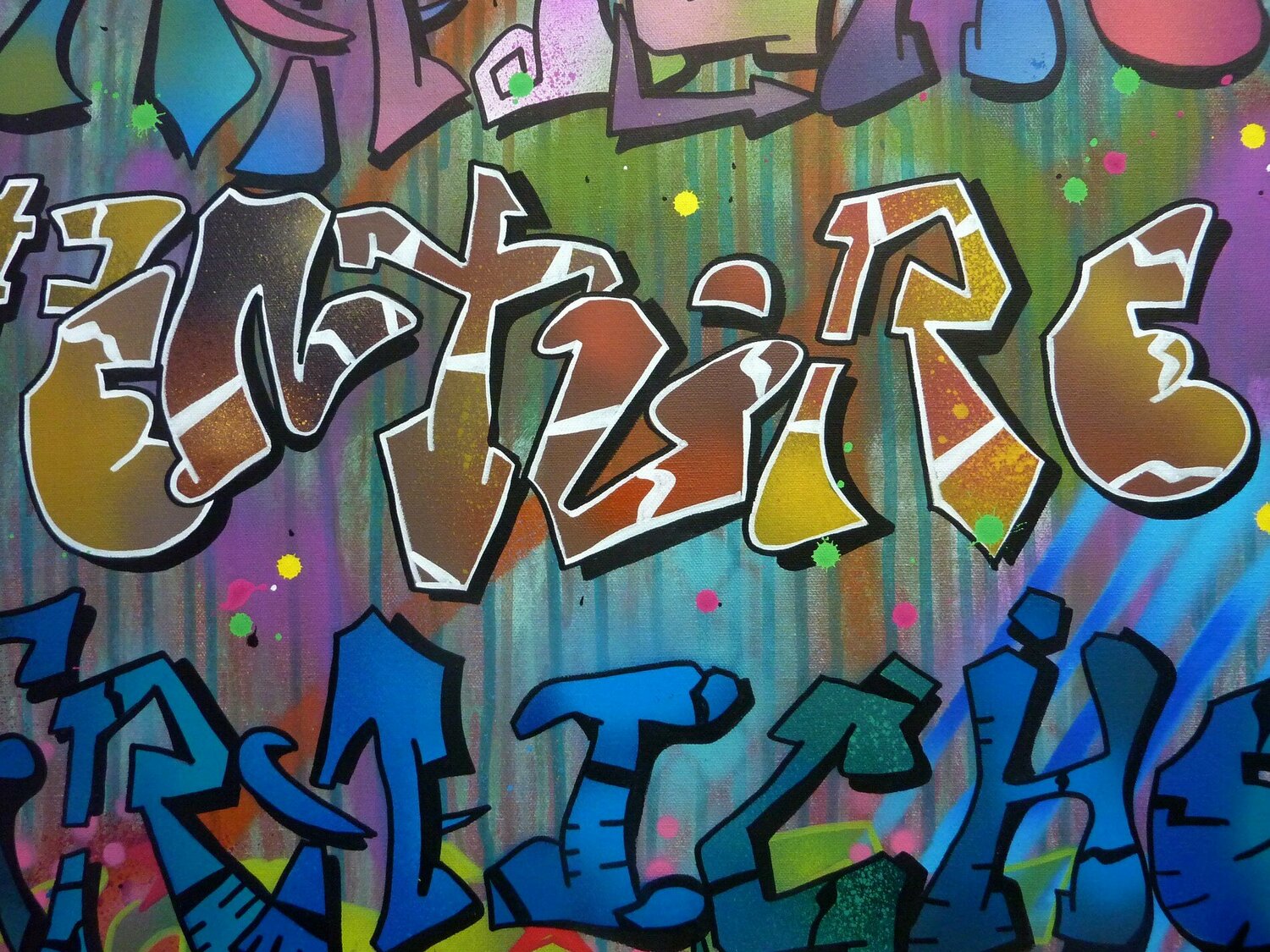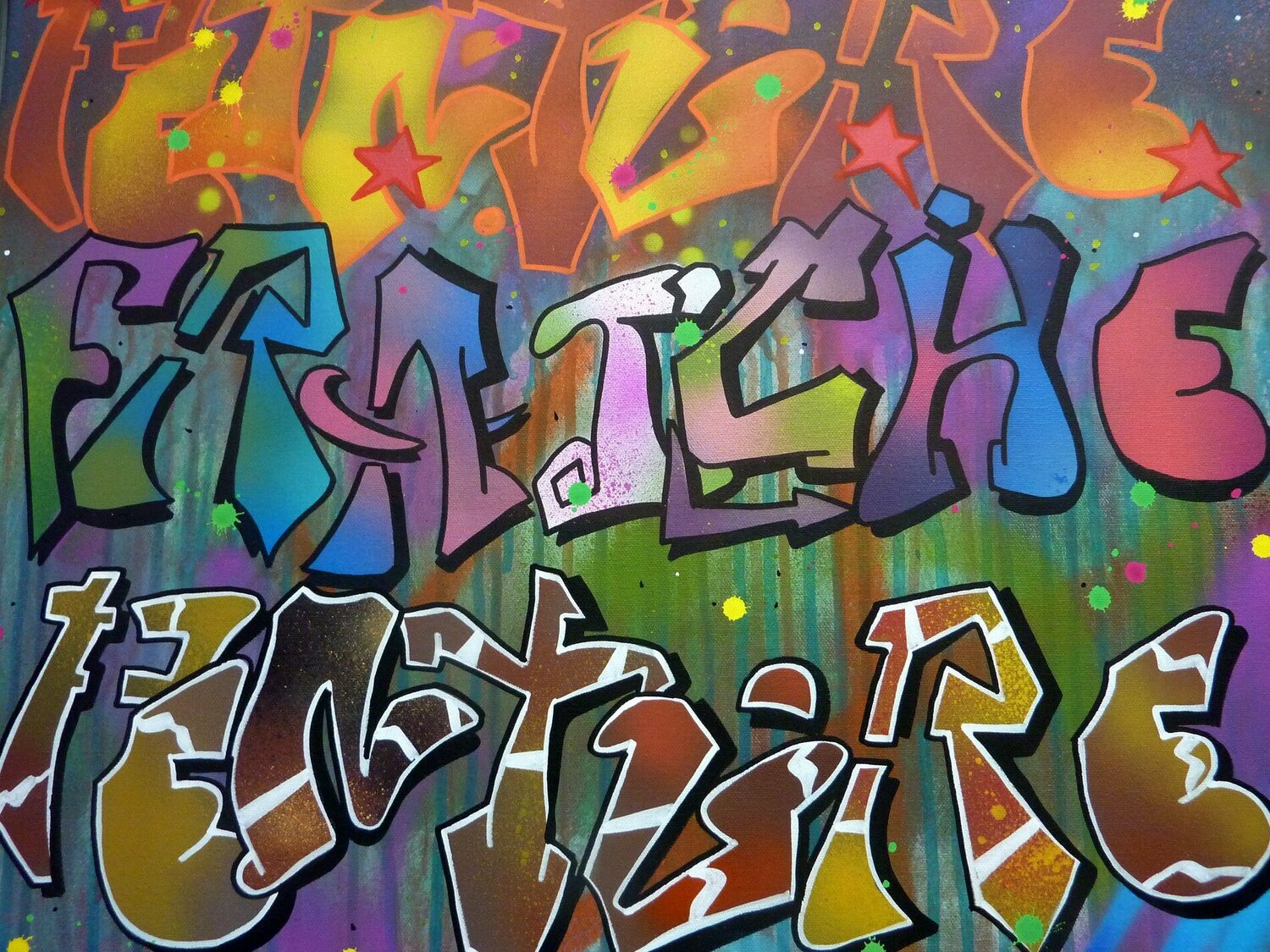
Peinture Fraiche Graffiti Font . Peinture fraiche € by qkila. It was made as an editorial student project at ecal.
Peinture Fraiche free font
Web peinture fraiche, created by the talented font designer qkila, is a dynamic and captivating typeface that brings the boldness of 3d. Moreover, you can embed it to. Web download and install the peinture fraiche font by qkila. 830 181 téléchargements (44 hier) 9.
Peinture Fraiche Graffiti Font - Web peinture fraîche (“fresh paint”) is a book about graffiti designed by ruben bähler and romain oederlin. Baikal typeface in use, designed by ian party for newglyph. 830 181 téléchargements (44 hier) 9. 830,204 downloads (23 yesterday) 9. Peinture fraiche € by qkila.
Peinture Fraiche Graffiti Font - The peinture fraiche font has been downloaded 192,189 times. Baikal typeface in use, designed by ian party for newglyph. It was made as an editorial student project at ecal. 830 181 téléchargements (44 hier) 9. Peinture fraiche € par qkila.
Peinture Fraiche Graffiti Font - Moreover, you can embed it to. Peinture fraiche € par qkila. Web peinture fraîche (“fresh paint”) is a book about graffiti designed by ruben bähler and romain oederlin. Baikal typeface in use, designed by ian party for newglyph. 830 181 téléchargements (44 hier) 9.
Peinture Fraiche Graffiti Font - Web peinture fraîche (“fresh paint”) is a book about graffiti designed by ruben bähler and romain oederlin. Web peinture fraiche, created by the talented font designer qkila, is a dynamic and captivating typeface that brings the boldness of 3d. Web download and install the peinture fraiche font by qkila. 830,204 downloads (23 yesterday) 9. 830 181 téléchargements (44 hier) 9.
Peinture Fraiche Graffiti Font - Web download and install the peinture fraiche font by qkila. 830,204 downloads (23 yesterday) 9. It was made as an editorial student project at ecal. Baikal typeface in use, designed by ian party for newglyph. Web peinture fraiche, created by the talented font designer qkila, is a dynamic and captivating typeface that brings the boldness of 3d.
Peinture Fraiche Graffiti Font - Peinture fraiche € par qkila. 830 181 téléchargements (44 hier) 9. Baikal typeface in use, designed by ian party for newglyph. Peinture fraiche € by qkila. It was made as an editorial student project at ecal.
Peinture Fraiche Graffiti Font - It was made as an editorial student project at ecal. 830 181 téléchargements (44 hier) 9. Peinture fraiche € par qkila. Web peinture fraîche (“fresh paint”) is a book about graffiti designed by ruben bähler and romain oederlin. Peinture fraiche € by qkila.
Peinture Fraiche Graffiti Font - Web peinture fraiche, created by the talented font designer qkila, is a dynamic and captivating typeface that brings the boldness of 3d. Web peinture fraîche (“fresh paint”) is a book about graffiti designed by ruben bähler and romain oederlin. Moreover, you can embed it to. Peinture fraiche € par qkila. 830,204 downloads (23 yesterday) 9.
Peinture Fraiche Graffiti Font - 830 181 téléchargements (44 hier) 9. Peinture fraiche € by qkila. The peinture fraiche font has been downloaded 192,189 times. Web peinture fraiche, created by the talented font designer qkila, is a dynamic and captivating typeface that brings the boldness of 3d. Web peinture fraîche (“fresh paint”) is a book about graffiti designed by ruben bähler and romain oederlin.
Peinture Fraiche Graffiti Font - Web peinture fraiche, created by the talented font designer qkila, is a dynamic and captivating typeface that brings the boldness of 3d. Moreover, you can embed it to. 830 181 téléchargements (44 hier) 9. Peinture fraiche € by qkila. 830,204 downloads (23 yesterday) 9.
Peinture Fraiche Graffiti Font - 830 181 téléchargements (44 hier) 9. 830,204 downloads (23 yesterday) 9. Web peinture fraîche (“fresh paint”) is a book about graffiti designed by ruben bähler and romain oederlin. Moreover, you can embed it to. Web download and install the peinture fraiche font by qkila.
Peinture Fraiche Graffiti Font - Peinture fraiche € by qkila. Web peinture fraiche, created by the talented font designer qkila, is a dynamic and captivating typeface that brings the boldness of 3d. Baikal typeface in use, designed by ian party for newglyph. It was made as an editorial student project at ecal. Moreover, you can embed it to.
Peinture Fraiche Graffiti Font - Peinture fraiche € by qkila. Web peinture fraîche (“fresh paint”) is a book about graffiti designed by ruben bähler and romain oederlin. Peinture fraiche € par qkila. Baikal typeface in use, designed by ian party for newglyph. The peinture fraiche font has been downloaded 192,189 times.
Peinture Fraiche Graffiti Font - Baikal typeface in use, designed by ian party for newglyph. 830,204 downloads (23 yesterday) 9. Moreover, you can embed it to. Web peinture fraiche, created by the talented font designer qkila, is a dynamic and captivating typeface that brings the boldness of 3d. Peinture fraiche € par qkila.
Peinture Fraiche Graffiti Font - Web download and install the peinture fraiche font by qkila. 830,204 downloads (23 yesterday) 9. 830 181 téléchargements (44 hier) 9. Baikal typeface in use, designed by ian party for newglyph. Moreover, you can embed it to.